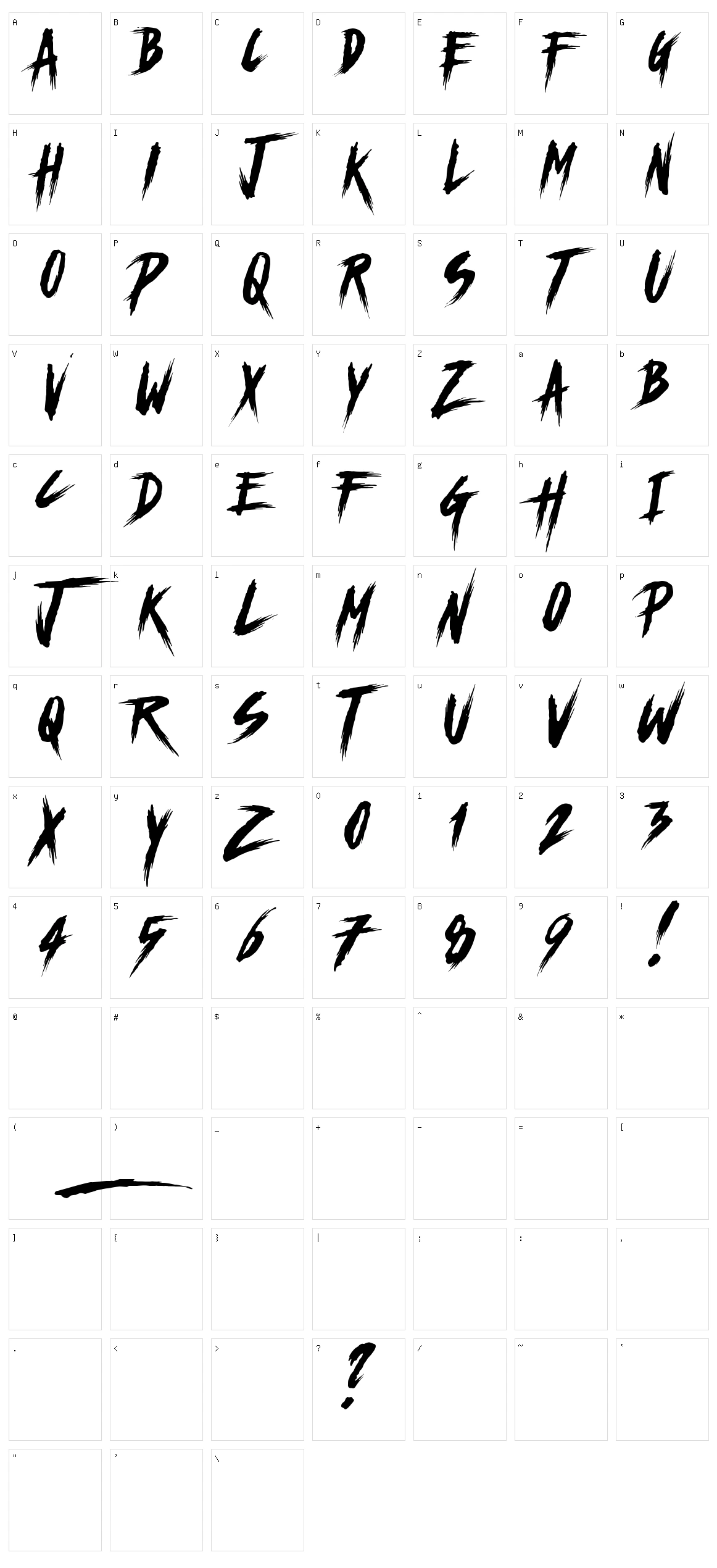
The free font Chapters is carefully designed by The Branded Quotes, showcasing a thoughtful balance of creativity and usability and falls under the Trash font style. When you download the ZIP file, it contains only 5834.21 KB of font files, making it lightweight and quick to download. Please review the license details below to understand permitted usage and distribution rights. If license information is not available, we recommend using this font for personal projects only or contacting the author directly for commercial usage permissions.